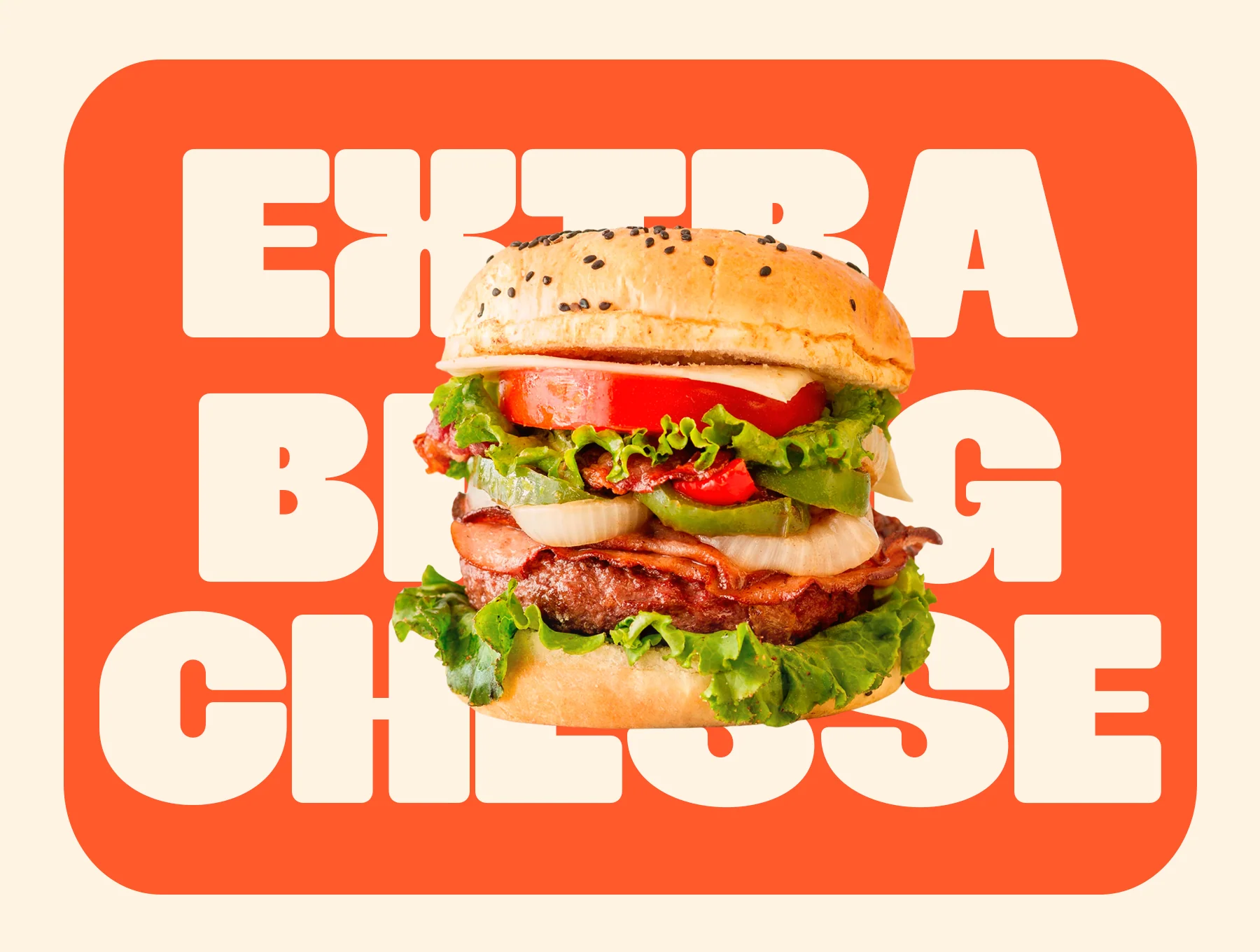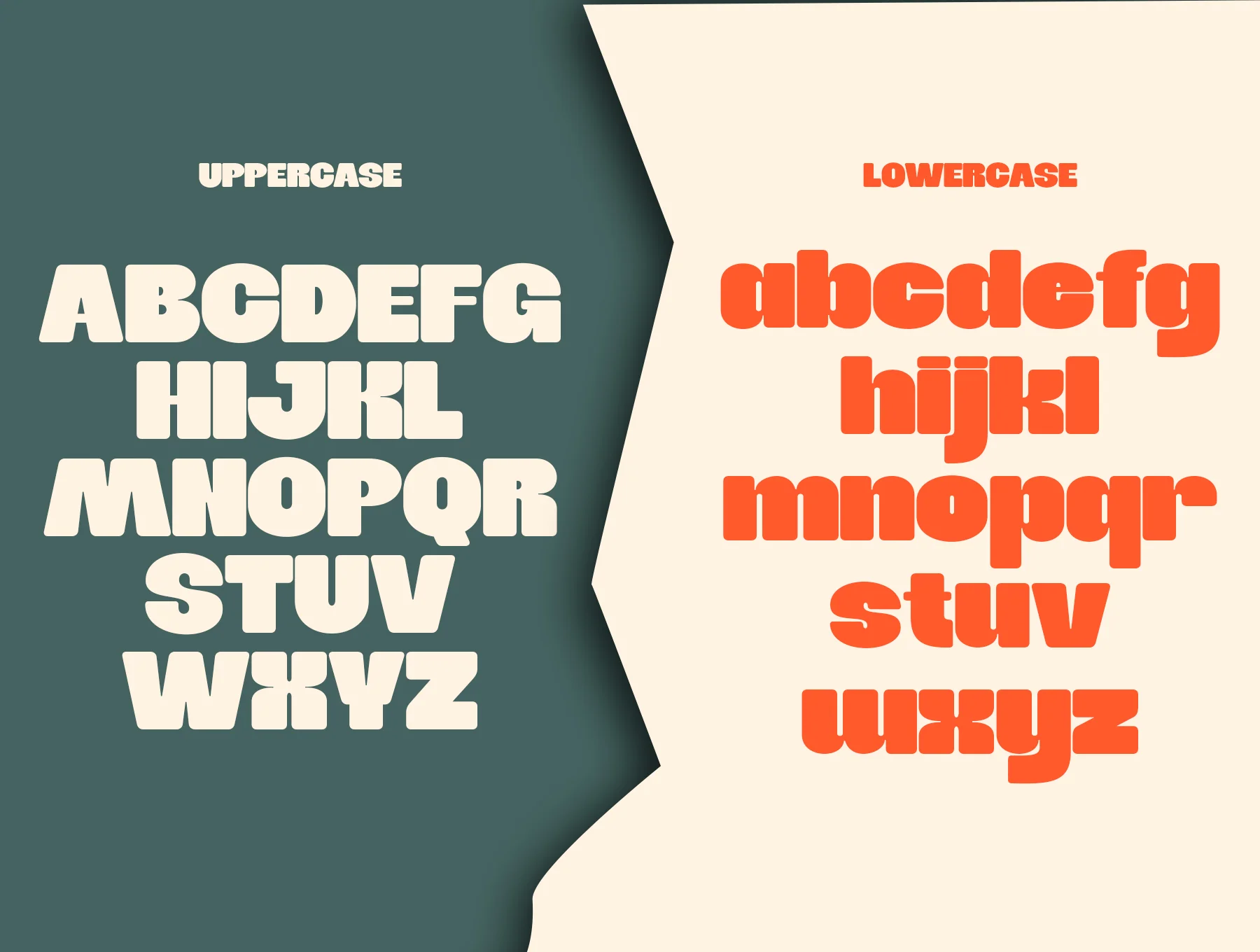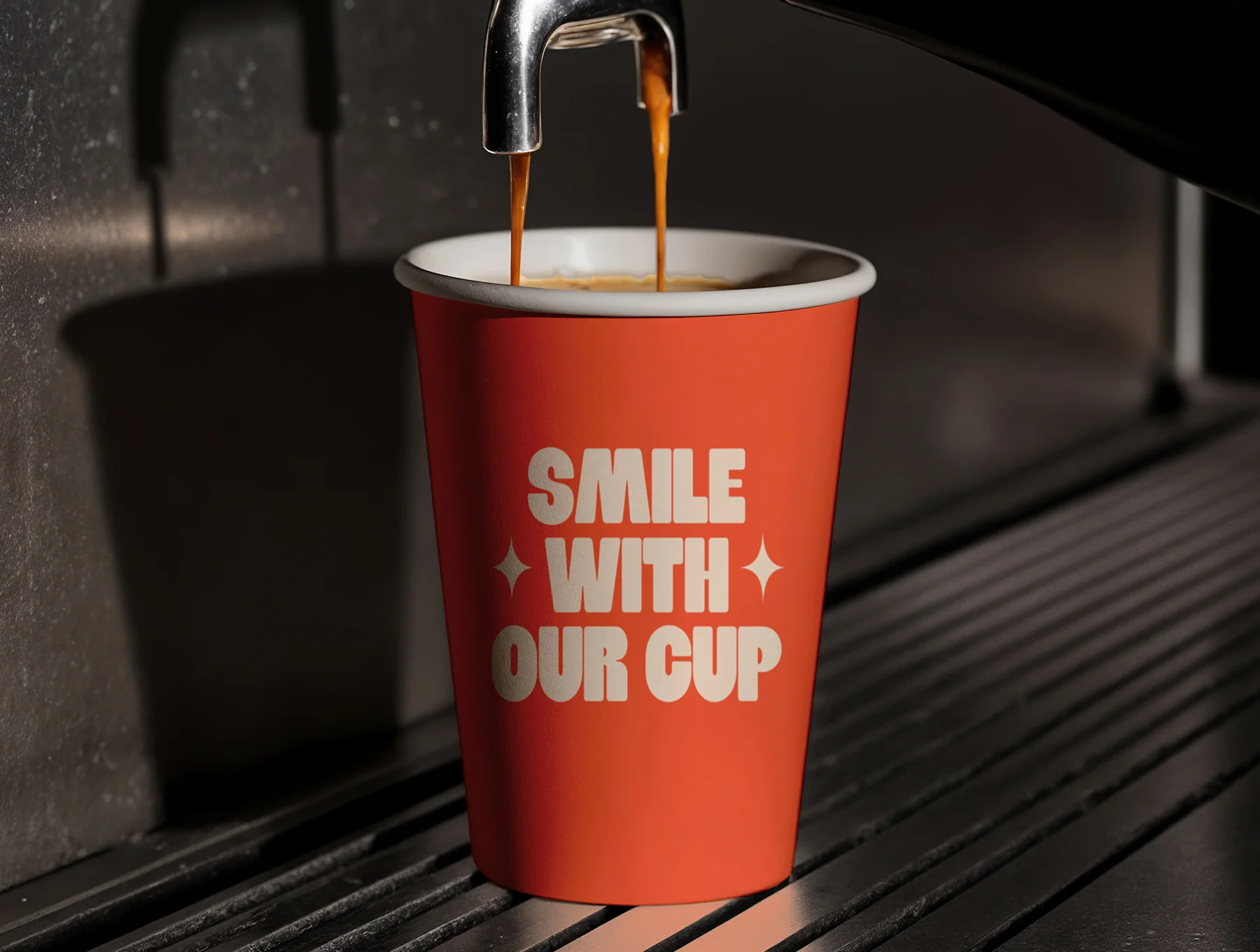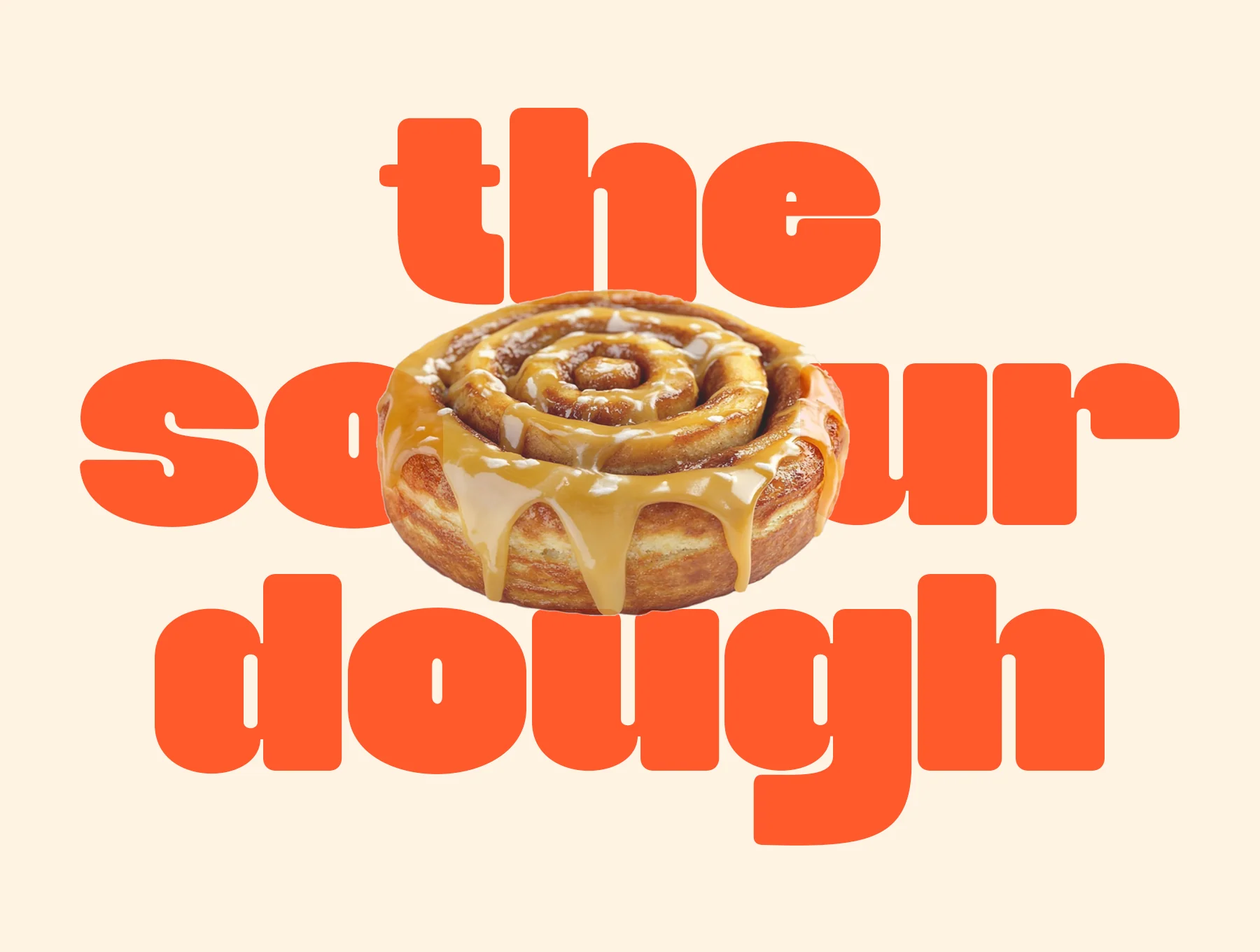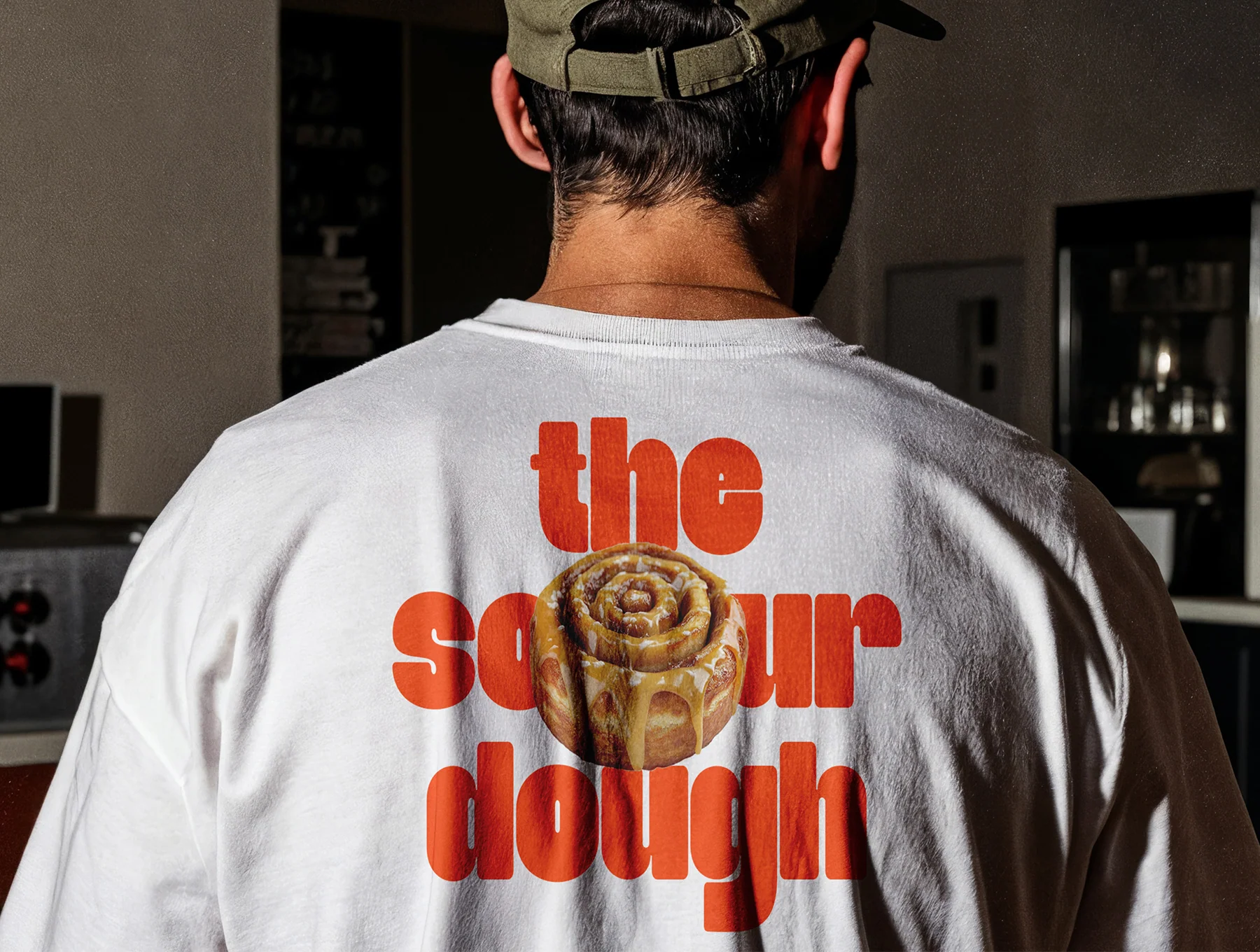
Shagie Boogie Font
Ultra-Heavy Display Typeface
Shagie Boogie is a striking sans-serif display font with a lively, self-assured style. Its heavy lines, soft curves, and eye-catching form suit headlines, posters, logos, packaging, branding, social posts, and merch. Great for retro, cheerful, or bold modern designs. Includes upper/lowercase, numbers, punctuation, multilingual support, PC/Mac compatibility, and OTF, TTF, WOFF, WOFF2 files.